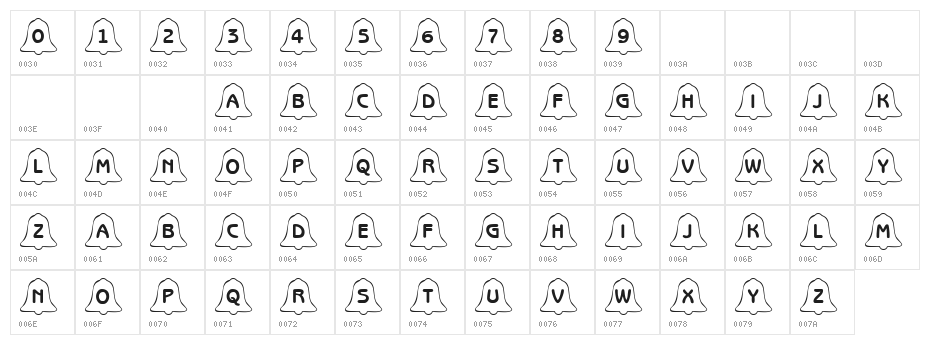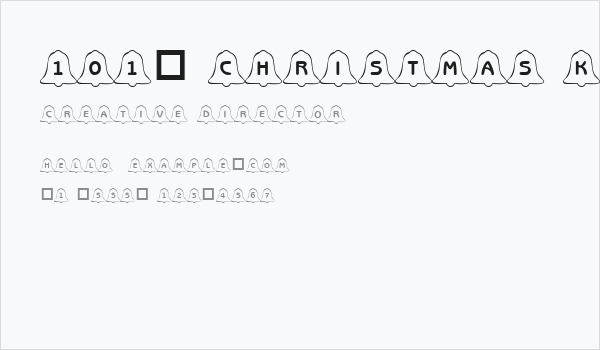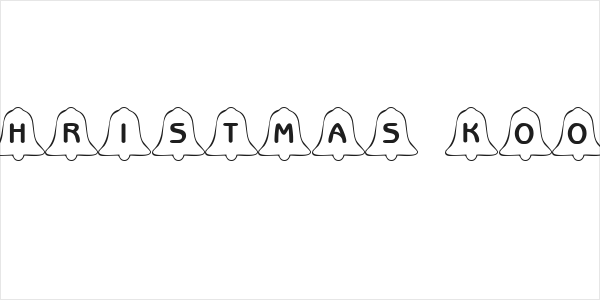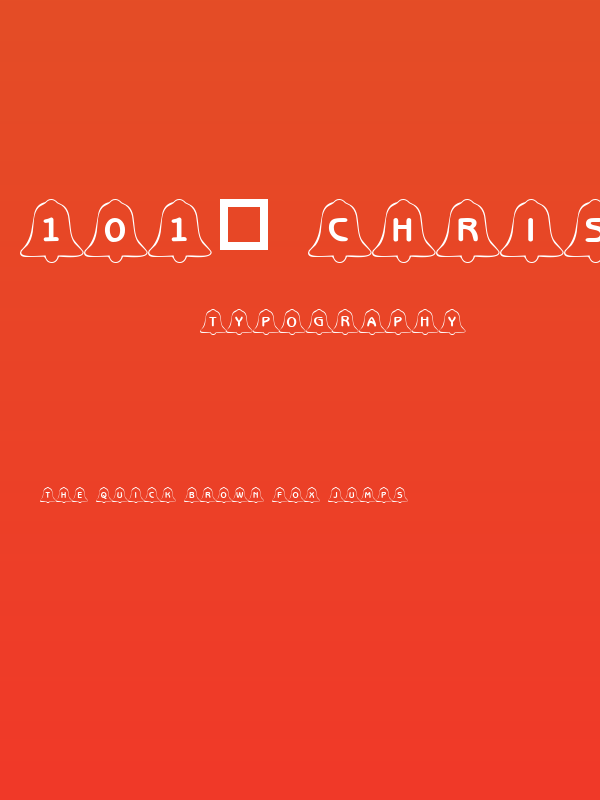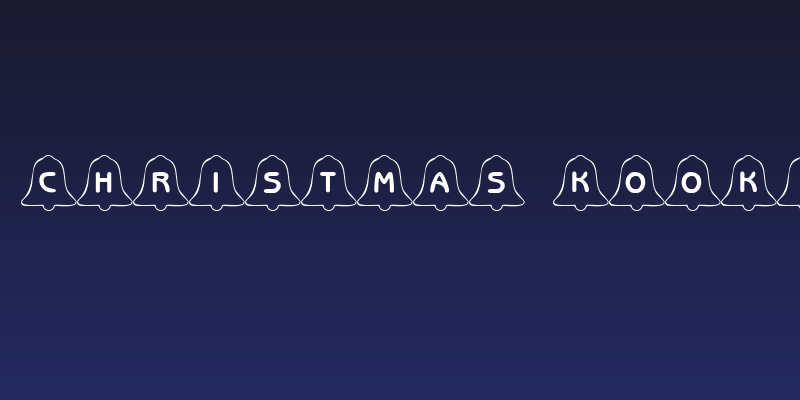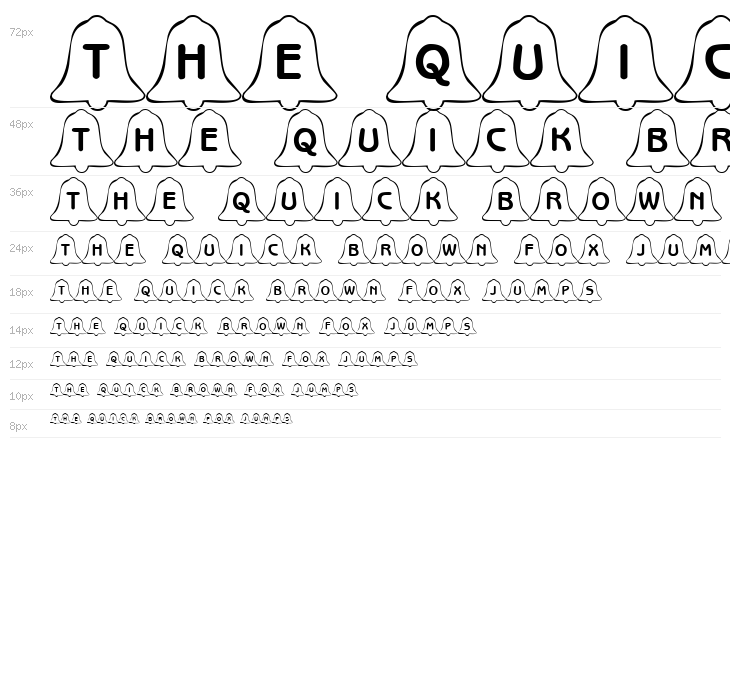
101! Christmas KookieZ 1 Font
101! Christmas KookieZ 1 Description
This playful and festive font features characters enclosed within bell-shaped outlines, evoking a cheerful holiday spirit. Each letter and number is neatly centered inside a bell, giving it a unique and decorative appearance. The font maintains a consistent style across uppercase, lowercase, and numeric characters, ensuring a cohesive look. The characters are bold and easily readable, making them suitable for various creative projects. The whimsical design is perfect for holiday-themed materials, adding a touch of fun and festivity to any text. The font's distinct style makes it stand out, capturing attention with its charming and joyful aesthetic.
| Use Case | Headlines, Logos, Decorative text |
| Proposed Projects | Ideal for Christmas cards, holiday invitations, festive banners, and seasonal marketing materials. |